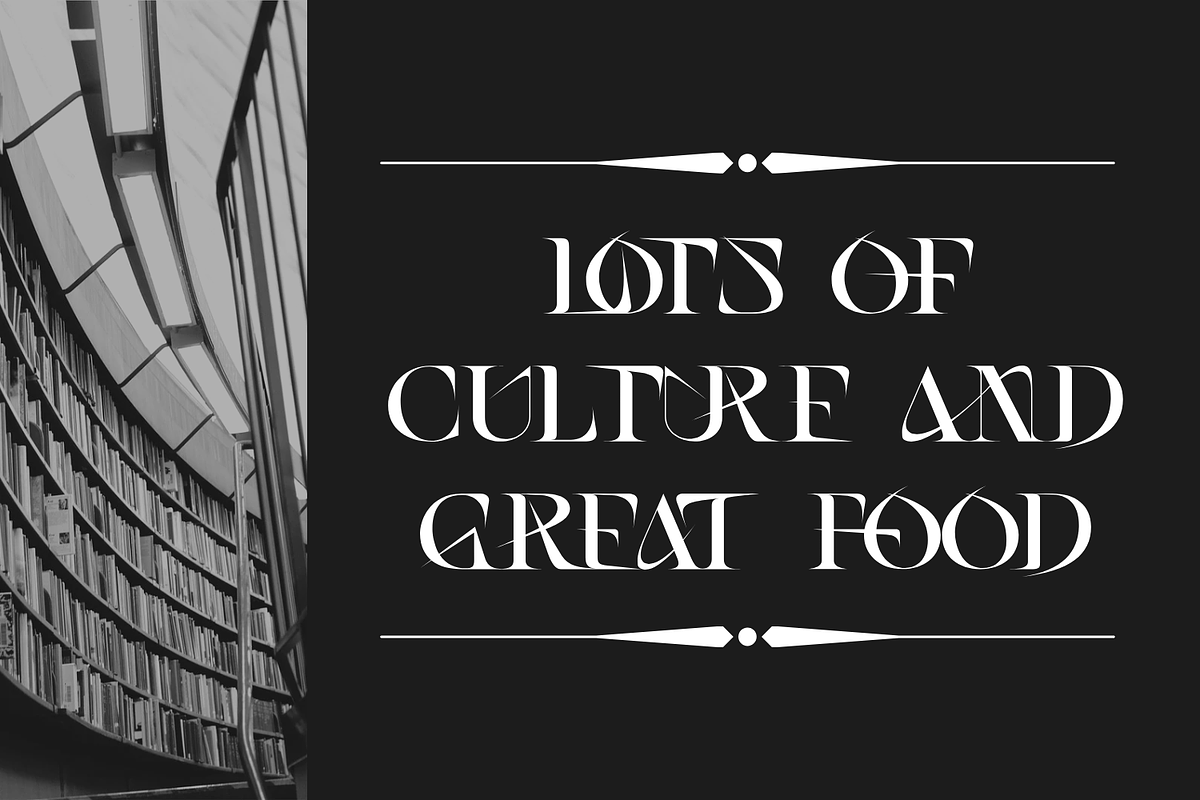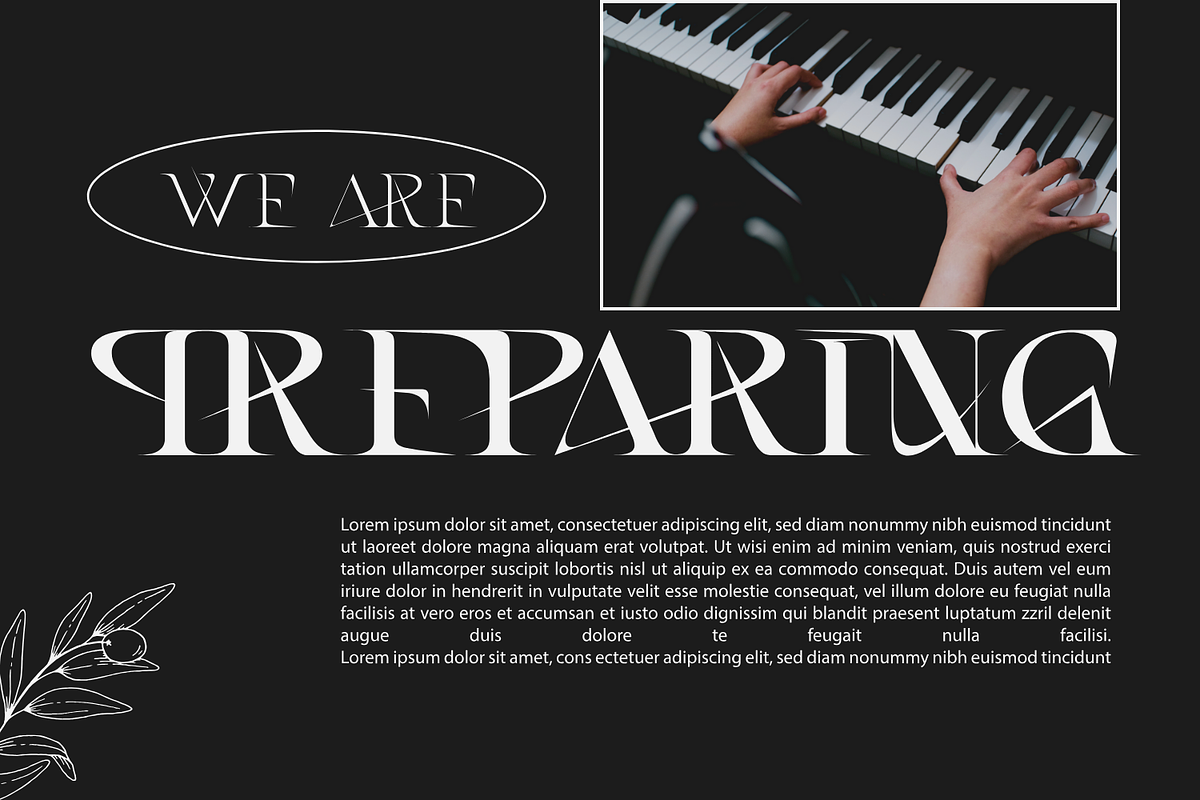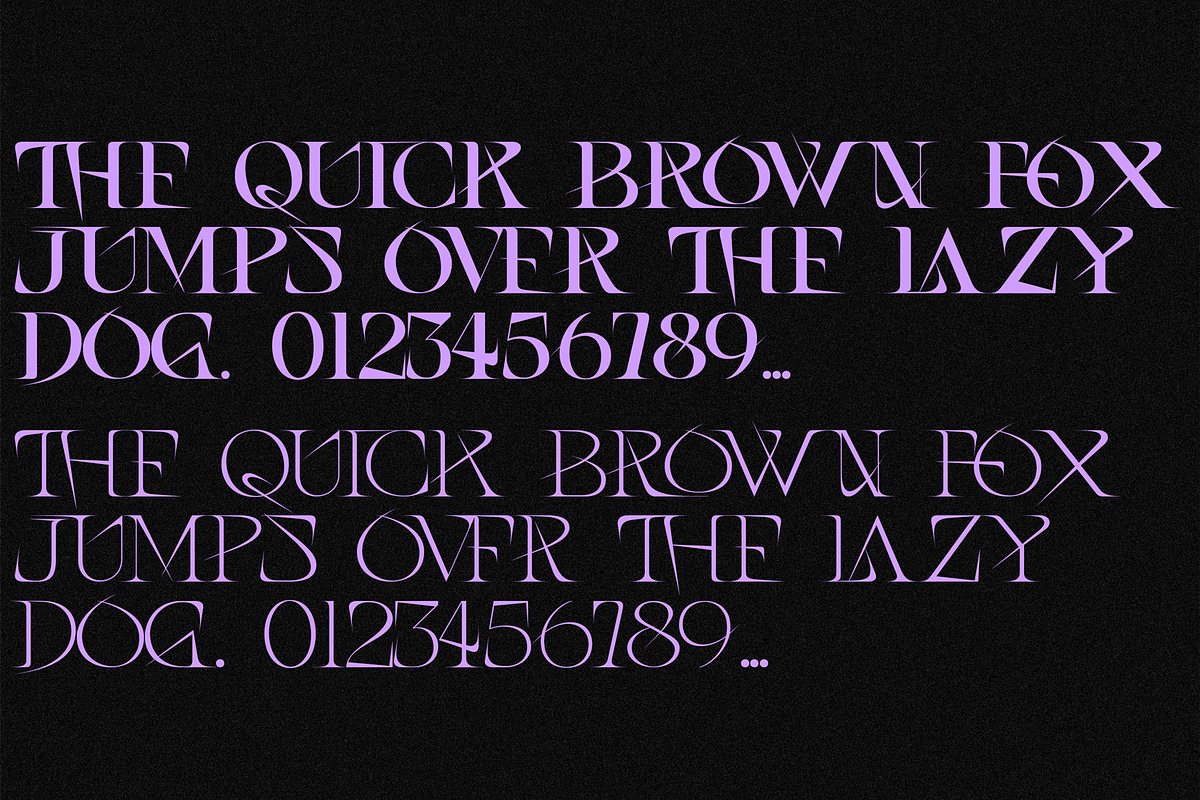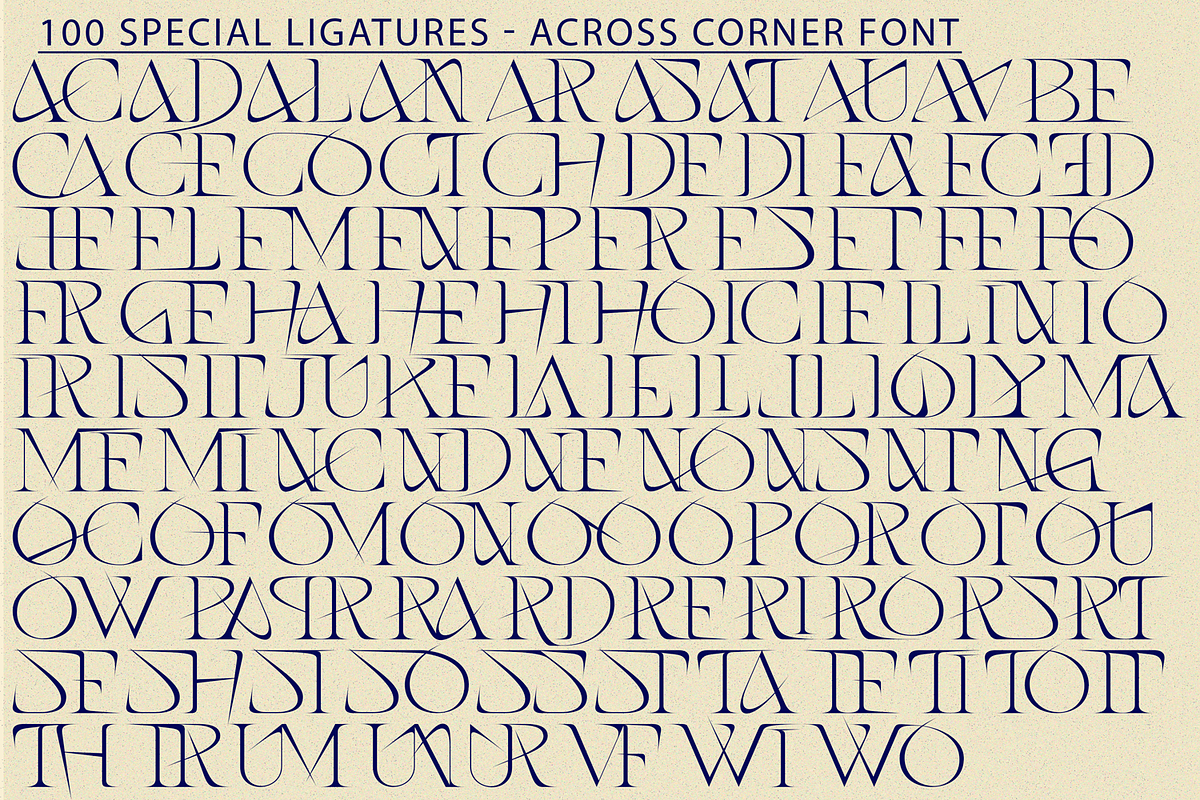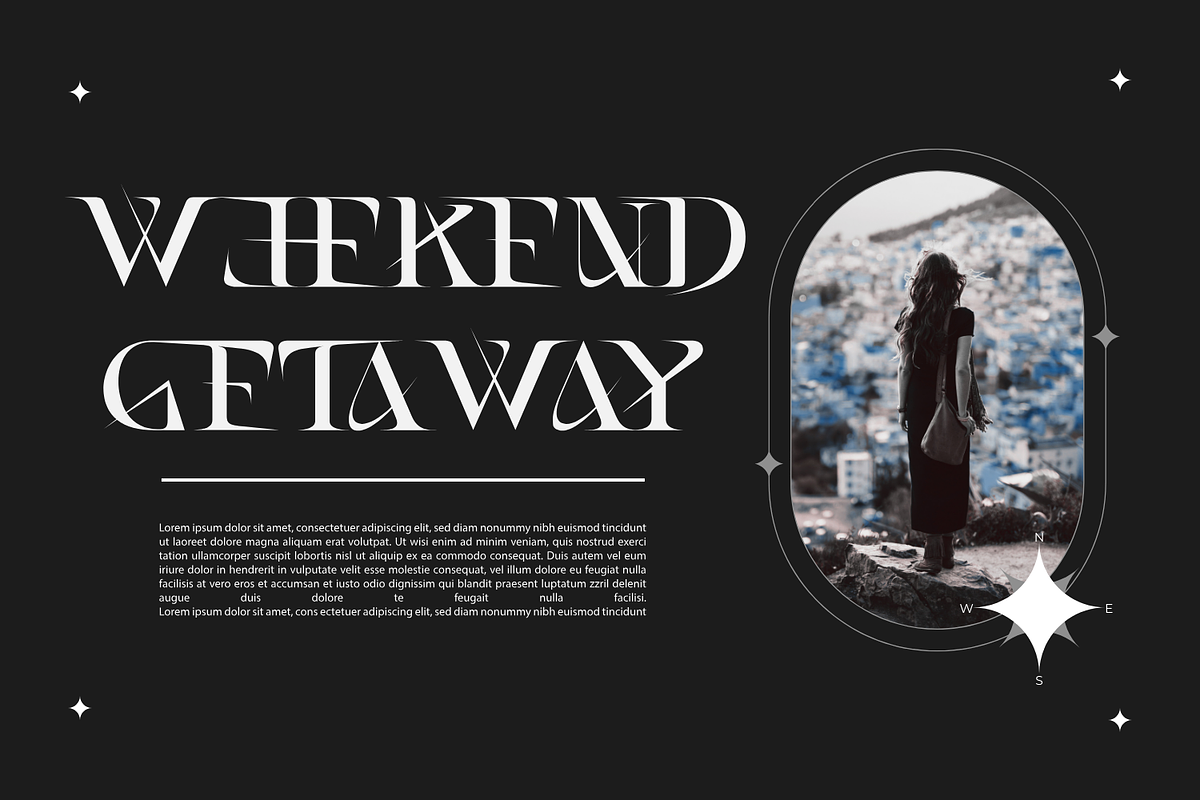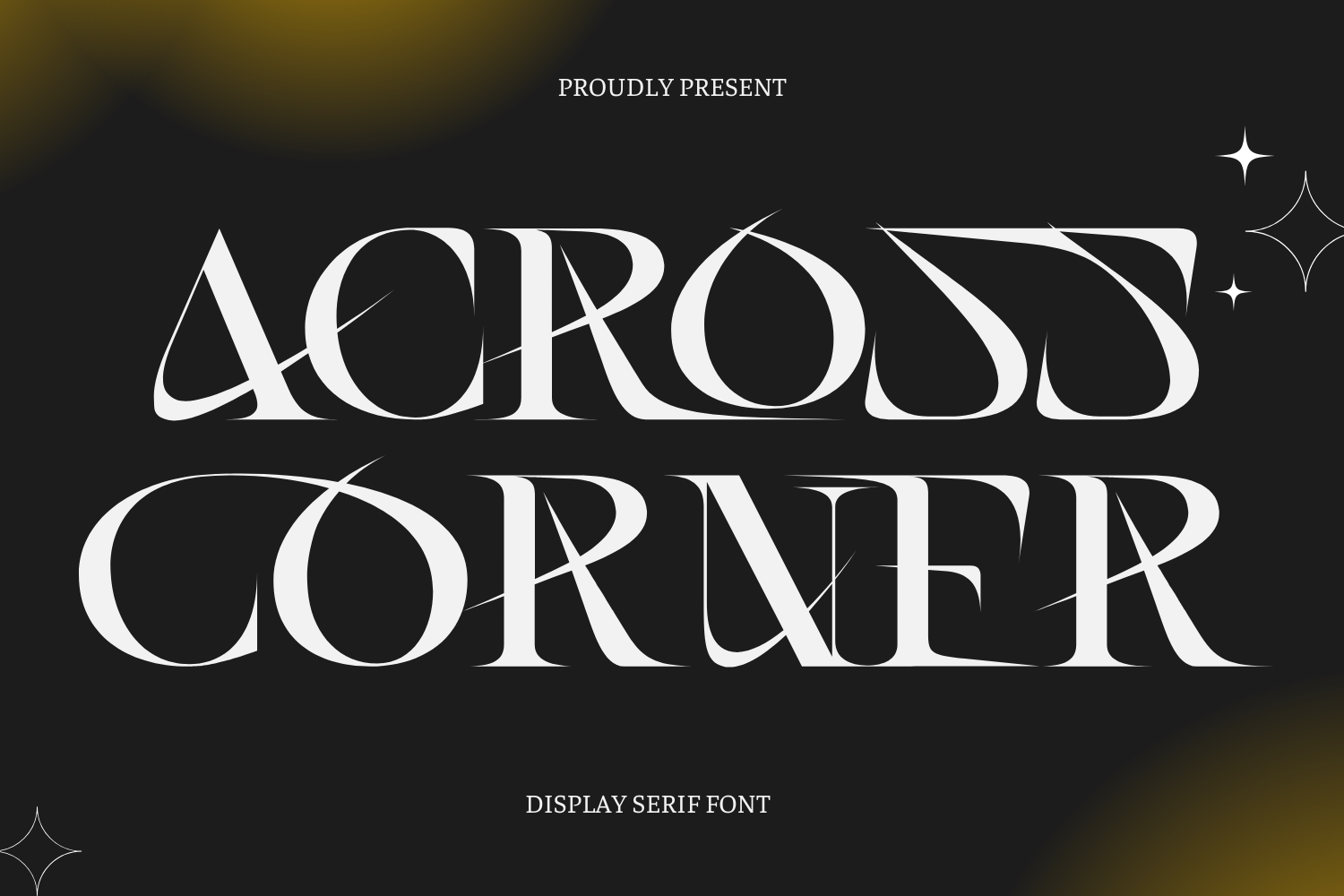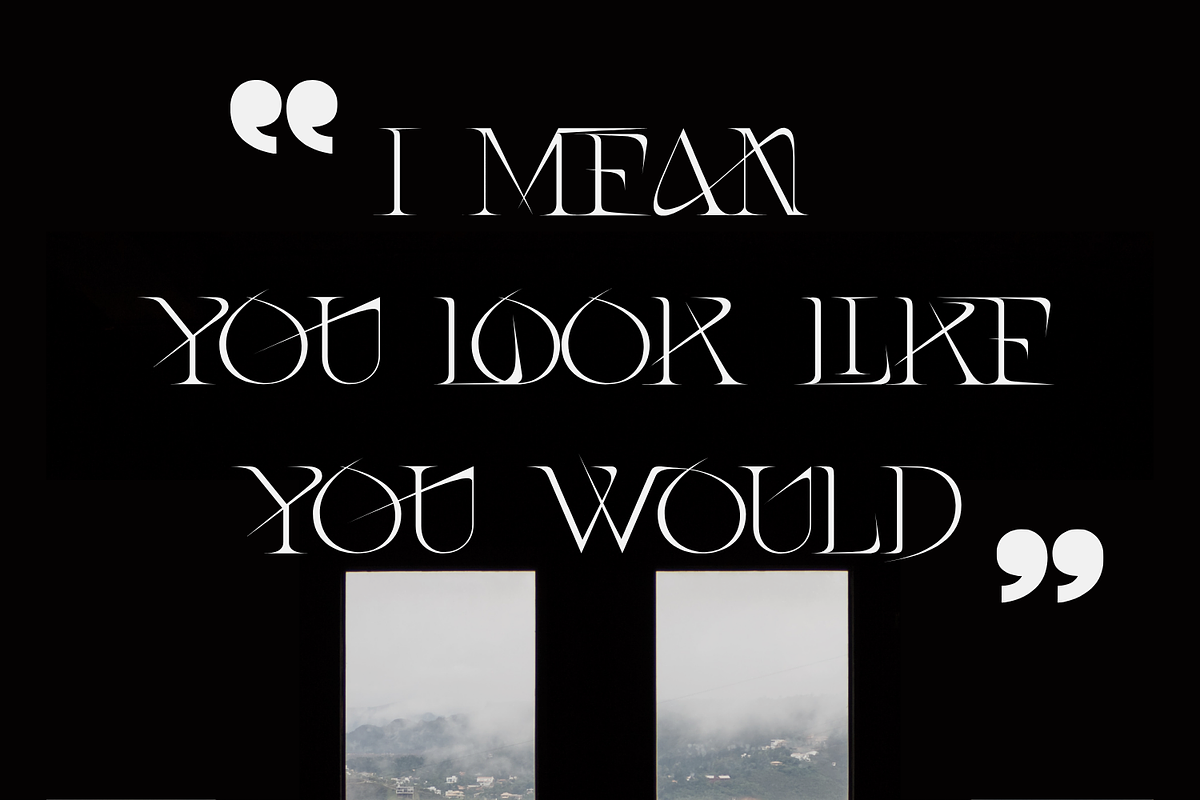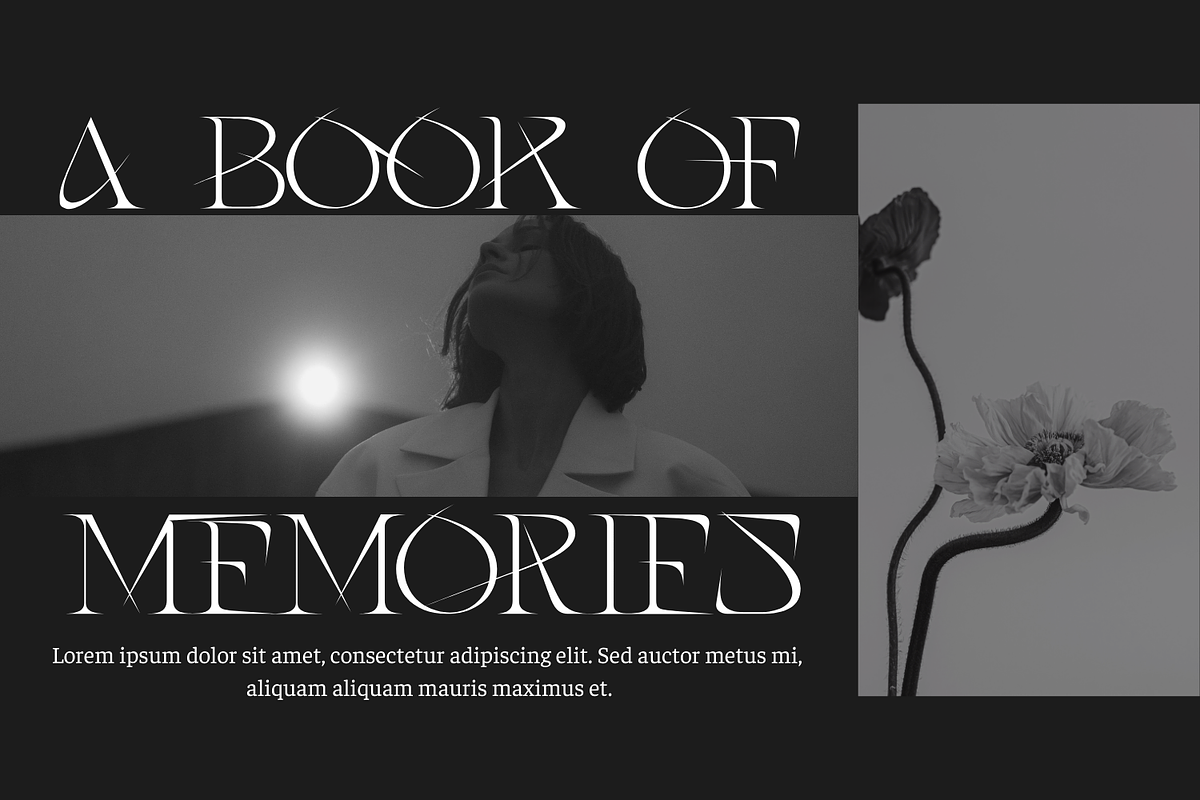
Across Corner Font
Across Corner Font, a stunning serif display font that combines timeless elegance with a modern aesthetic. A bold and captivating font that bridges the elegance of medieval serifs with the edgy allure of Dark Futuristic design. With it's sharp details and intricate curves, this font conveys both power and sophistication, fitting seamlessly into dark, futuristic aesthetics.
Across Corner was built with OpenType features and includes 100 ligatures, alternate, numbers, punctuation, and it also supports other languages.
AC AD AL AN AR AS AT AU AV BE CA CE CH CO CT DE DI EA EC ED EE EL EM EN EP ER ES ET FE FO FR GE HA HE HI HO IE IC IL IN IO IR IS IT JU KE LA LE LI LL LO LY MA ME MI NC ND NE NG NO NT NS OC OF OM ON OO OP OR OT OU OW PA PR RA RD RE RI RO RS RT SE SH SI SO SS ST TA TE TH TI TO TR TT UM UN UR VE WI WO
This font also included full set of:
- Uppercase letters
- Special Ligatures